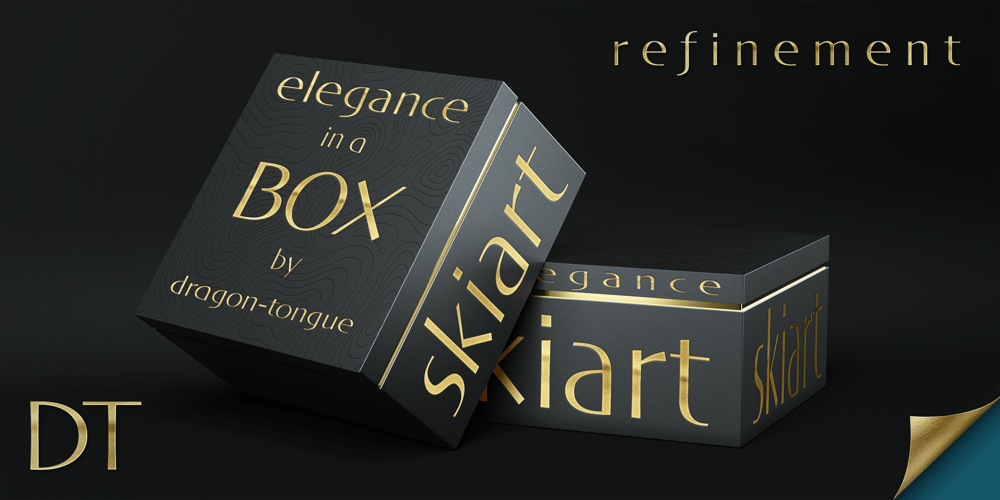
DT Skiart Font Family was designed by Scott Spensley and published by Dragon Tongue Foundry. DT Skiart contains 10 styles and family package options. Looking for something between a Serif and Sans Serif font?Try the DT Skiart font.This high quality, versatile font has the professional feel of a Serif, but has the open readability of a Sans Serif.A smart crisp font with smooth simple lines. It has a medium to strong stroke contrast, with the vertical line being heavier than the horizontal line, and no serifs.The DT Skiart family is made up of 5 weights in both italic and normal.